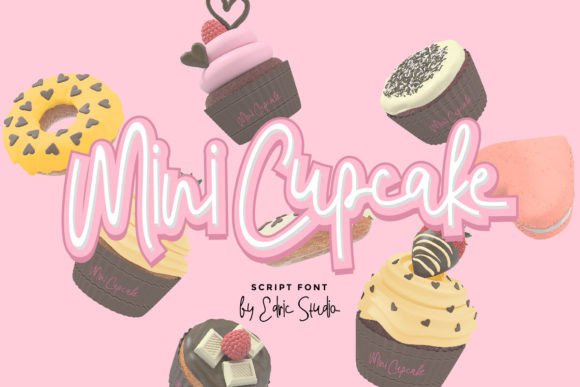
Dive into the world of Mini Cupcake, a delightful script font that exudes sweetness and charm. Inspired by the delectable world of cookies and sugary treats, this font captivates with its elegant strokes and playful personality.
Designed by the skilled hands of EdricStudio, Mini Cupcake offers a unique blend of style and legibility. Its tall and slender structure, adorned with semi-signature elements, ensures clear and effortless readability while maintaining a touch of whimsy.
With its versatility, Mini Cupcake effortlessly complements a myriad of industries, from the charming bakeries and inviting camps to the bustling event venues and sophisticated fashion houses. Restaurants, spas, and wedding organizers will find solace in its enchanting aura, while photographers and florists will appreciate its ability to elevate their visual masterpieces.
Indulge your creative senses and embark on an artistic journey with Mini Cupcake. Its graceful curves and playful strokes will add a touch of magic to your designs, transforming them into captivating works of art. Embrace the irresistible charm of Mini Cupcake and allow your imagination to flourish in its enchanting embrace.